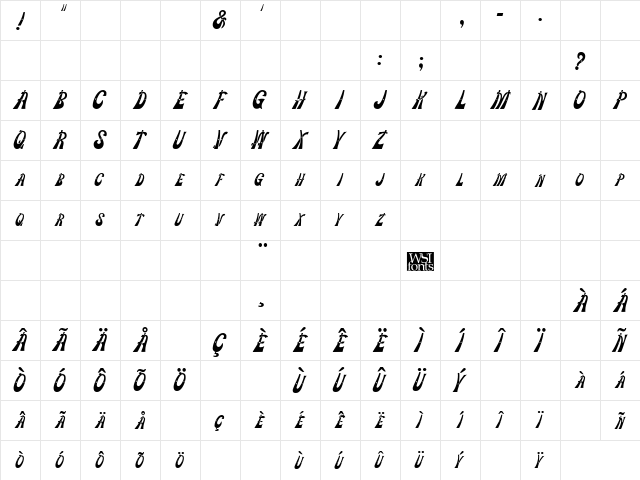
Chipper Display Regular
Design Context for Chipper Display Typeface
Chipper Display brings ornamental detail and strong personality to headlines and identities, where visual impact matters more than quiet functionality.
Font Pairing: Pair with a clean neutral sans-serif for body copy to let Chipper Display's character lead without overwhelming the composition.
Pro Tip: Treat Chipper Display as the centrepiece of your typographic hierarchy. One strong heading set in a decorative face can carry an entire layout.